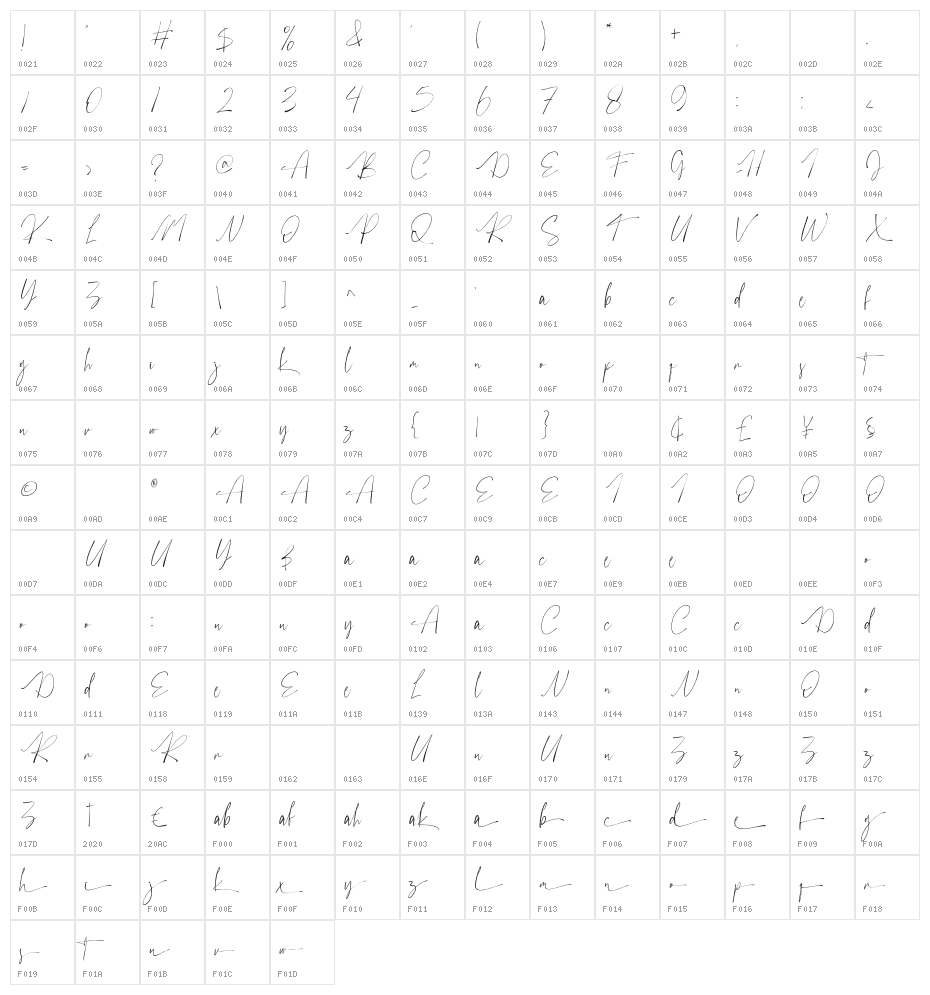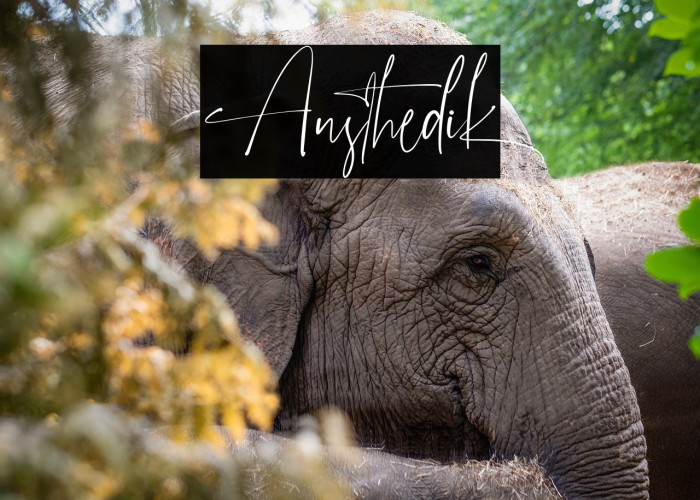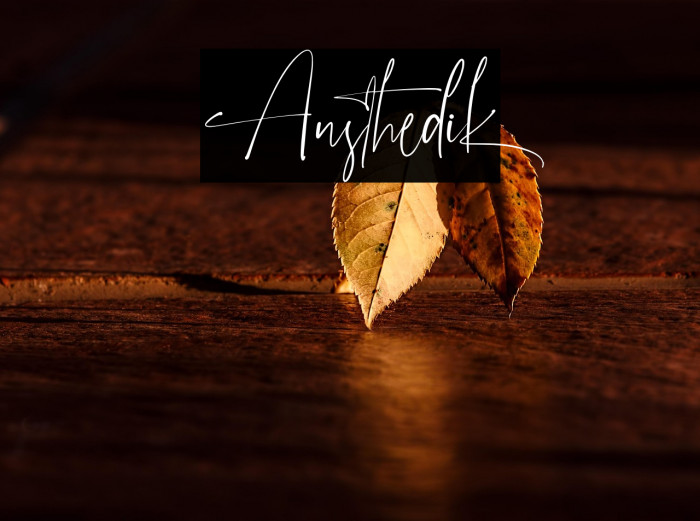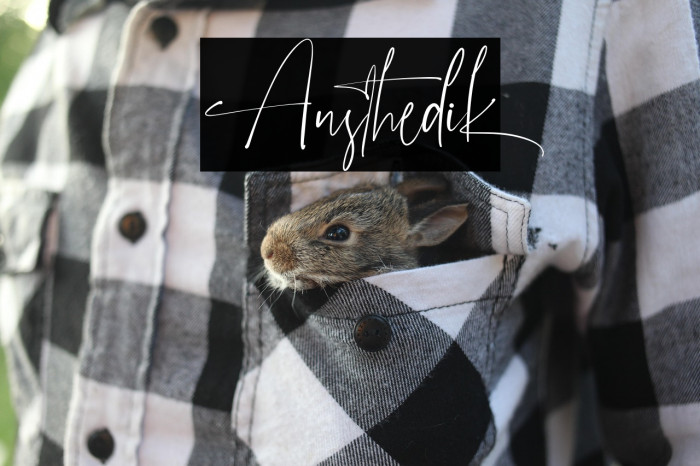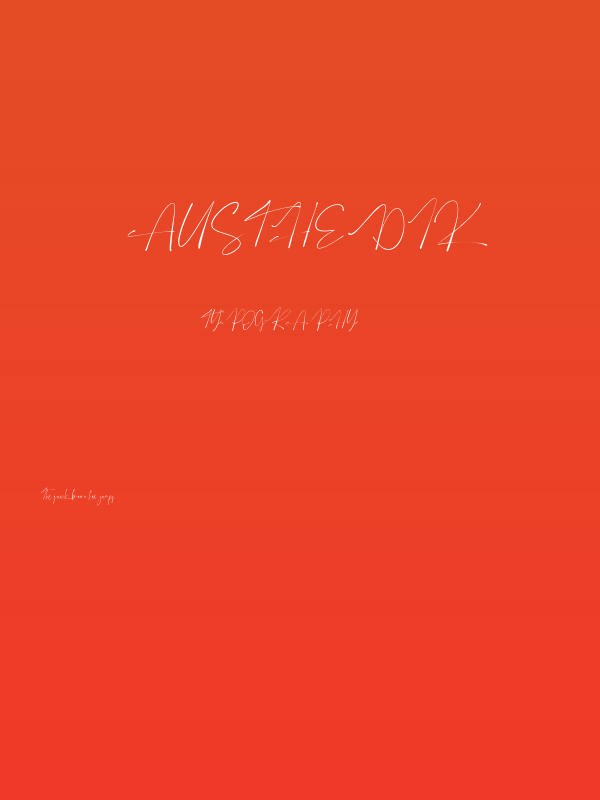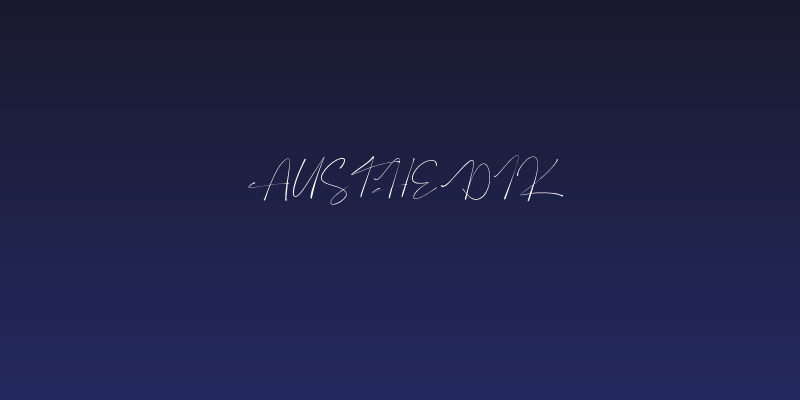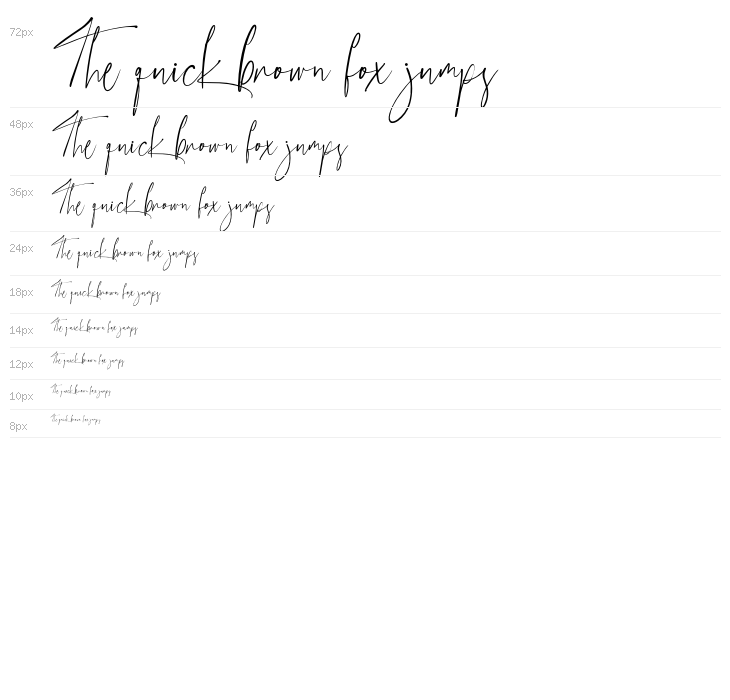
Austhedik Font
Austhedik Description
A flowing, elegant script font with a handwritten style, featuring thin strokes and a delicate appearance.
Overall StyleDecorative
Use CaseLogos, Invitations
Proposed ProjectsWedding invitations, greeting cards, personal branding.